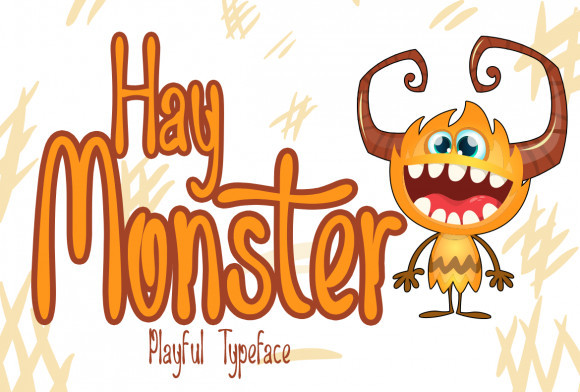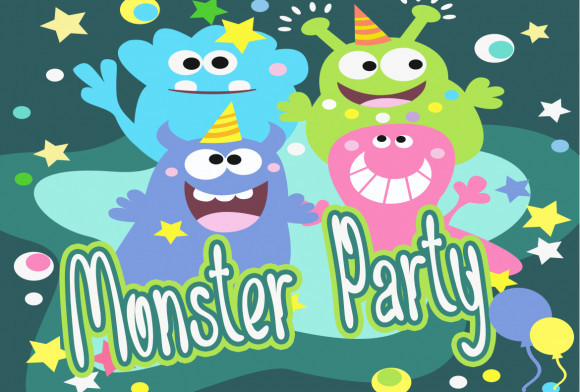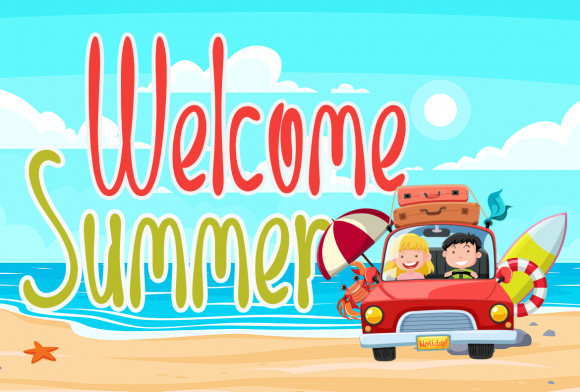
Hay Monster Font
Hay Monster is an incredibly quirky and playful display font. Whether you use it for cartoon related designs, children games or just any creation that requires a lovely touch, this font will be an amazing choice.